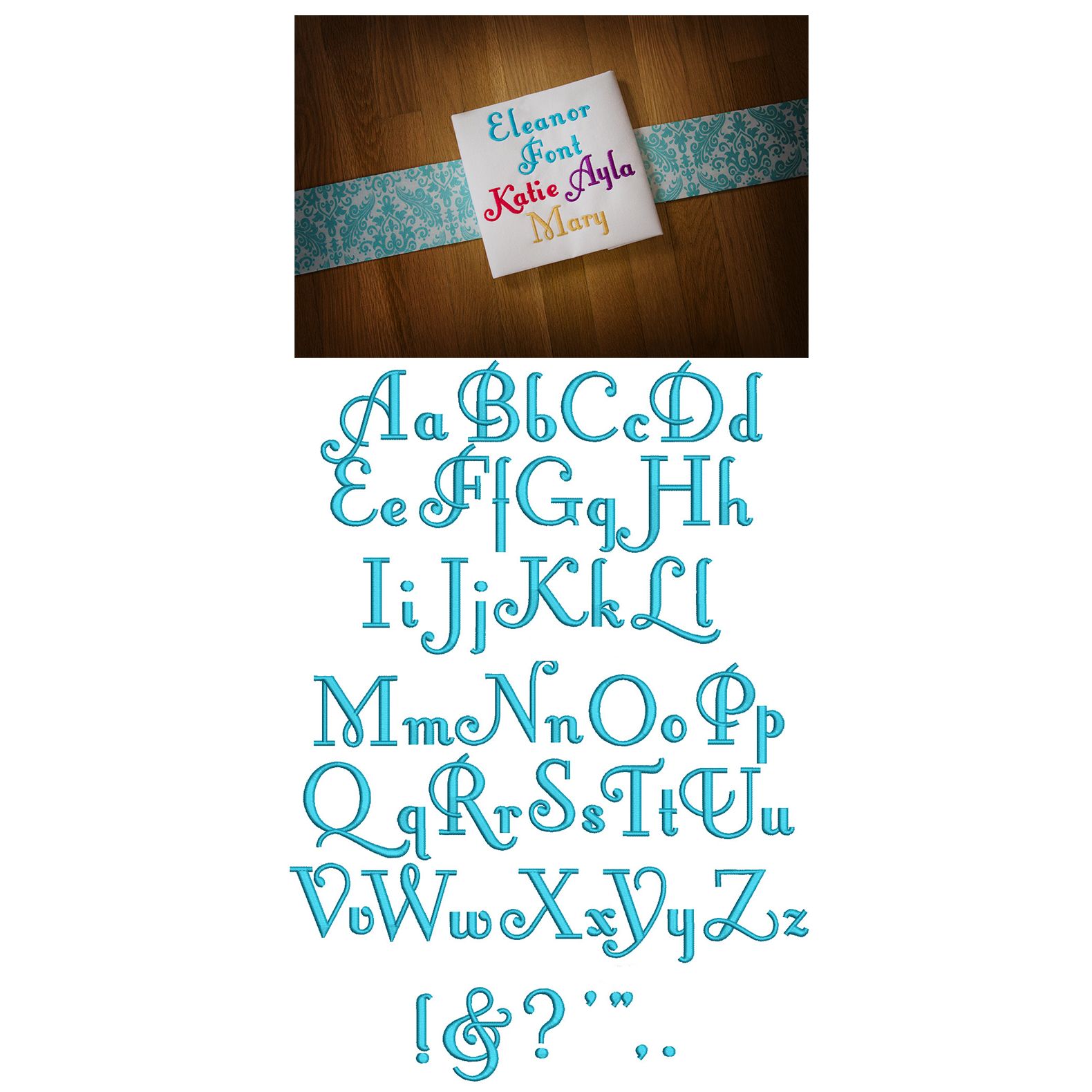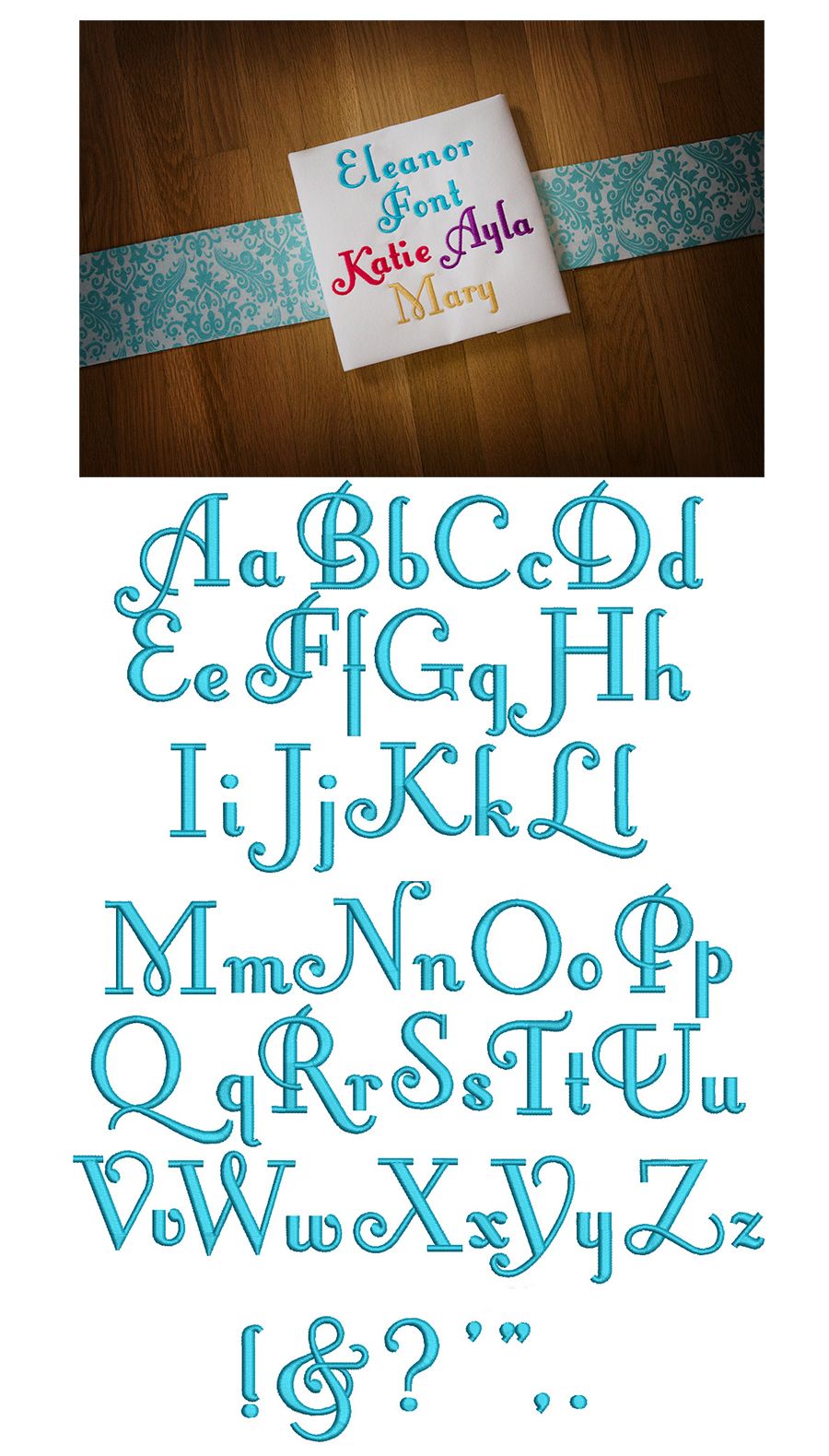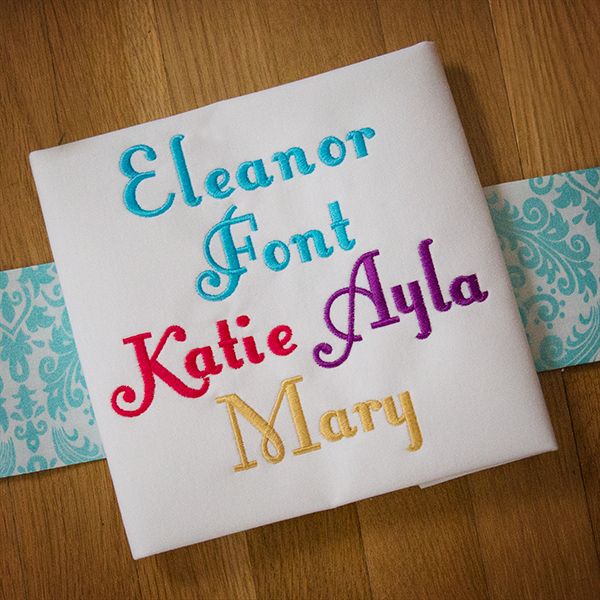
Eleanor Satin Stitch Embroidery Font
This is a lovely, simple and regal font. It has been highly requested and we are thrilled to bring it to you! So elegant All of our fonts are 100% manually digitized to ensure the highest quality.
**please note that numbers are NOT included with this font.